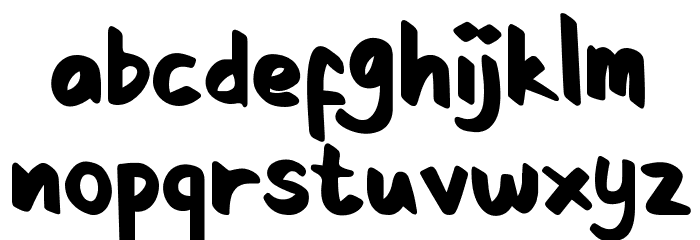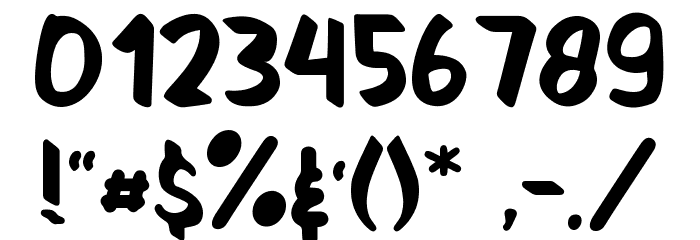
Kacang Goreng Font
This playful and bold font features a handwritten style with a whimsical touch. The characters are rounded and slightly irregular, giving a casual and friendly appearance. The uppercase and lowercase letters maintain a consistent style, with a noticeable bounce and flow that adds to its charm. The numerals and special characters are equally playful, fitting seamlessly with the overall design. This font is perfect for projects that require a fun and approachable aesthetic, such as children's books, playful branding, or informal invitations.
A playful, bold handwritten font with a whimsical and friendly style.
- Font: Kacang Goreng
- Proposed Projects: Ideal for children's books, playful branding, informal invitations, and creative posters.
- Category: Handwritten
- Overall Style: Playful, Casual
- Use Case: Headlines, Logos, Informal Text